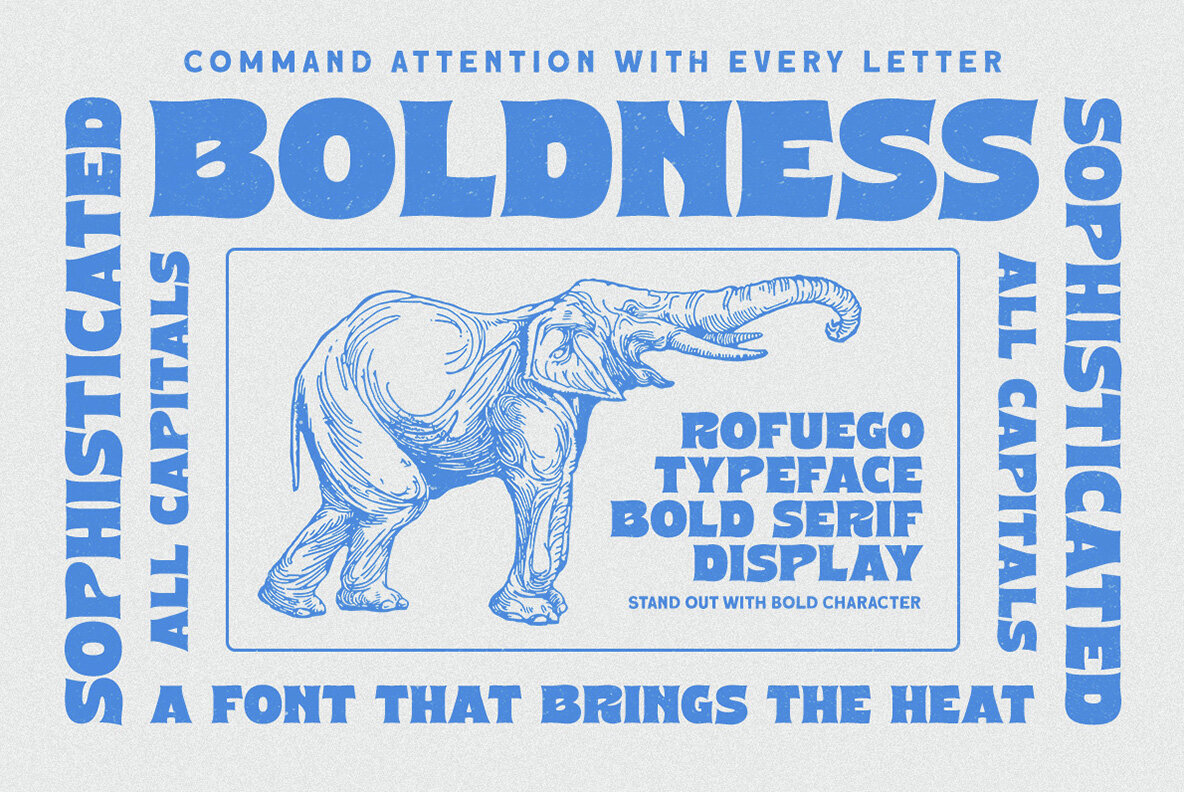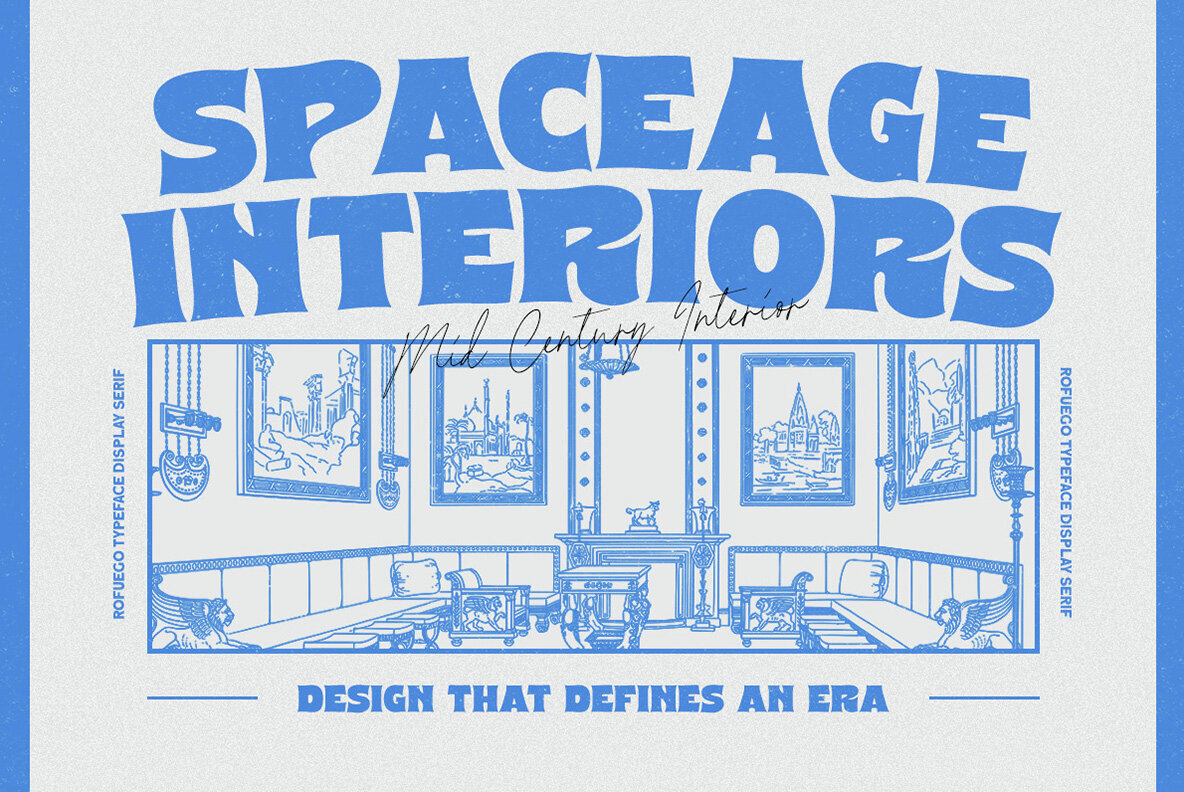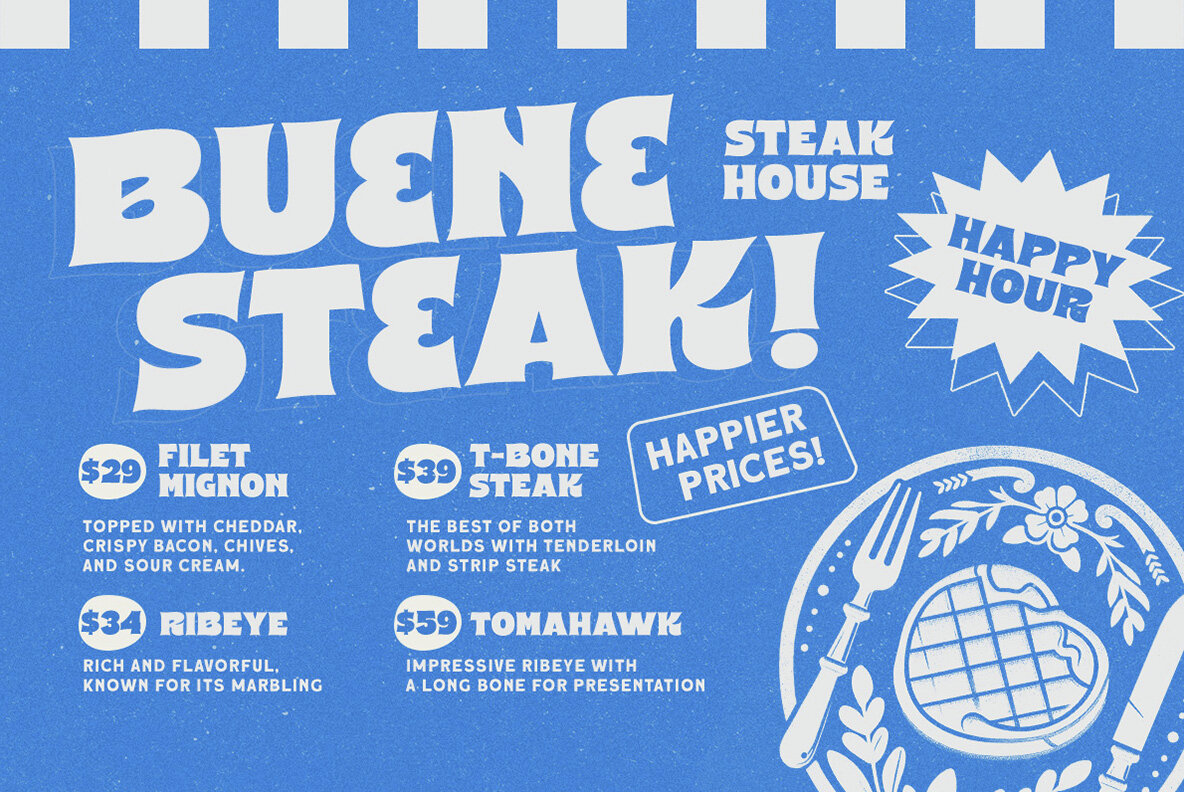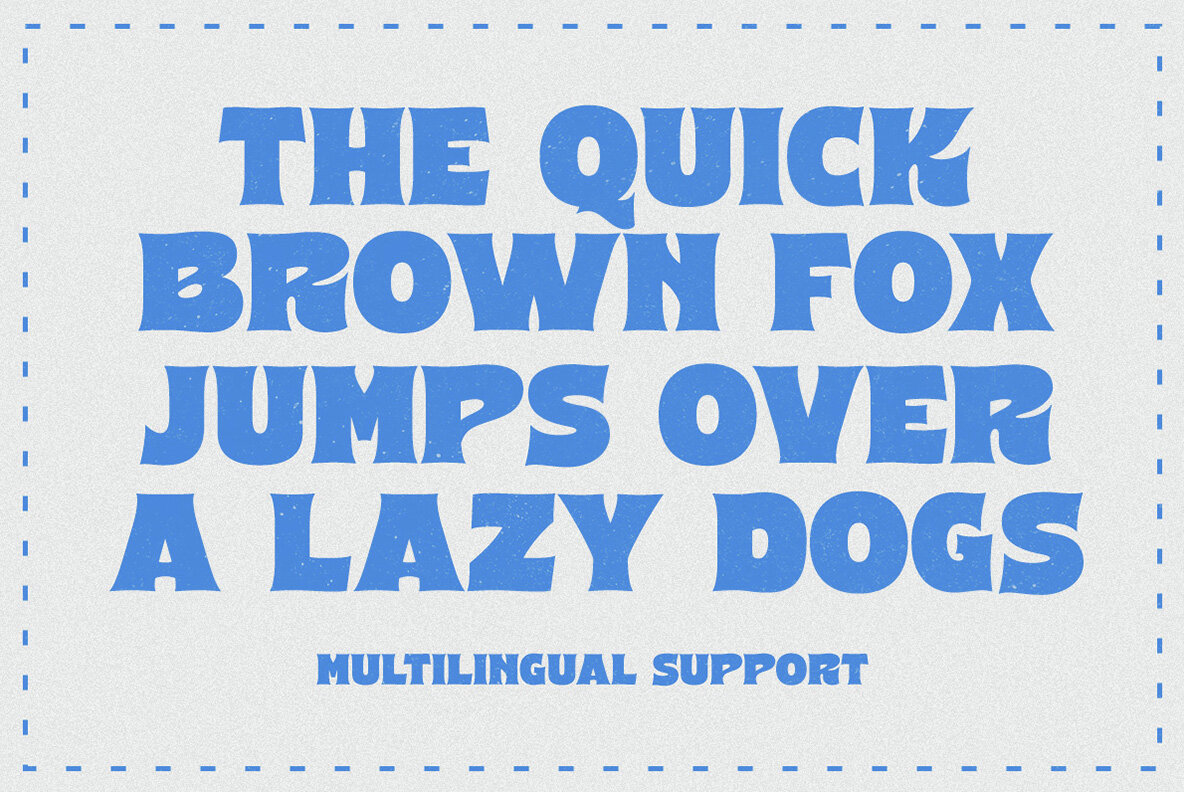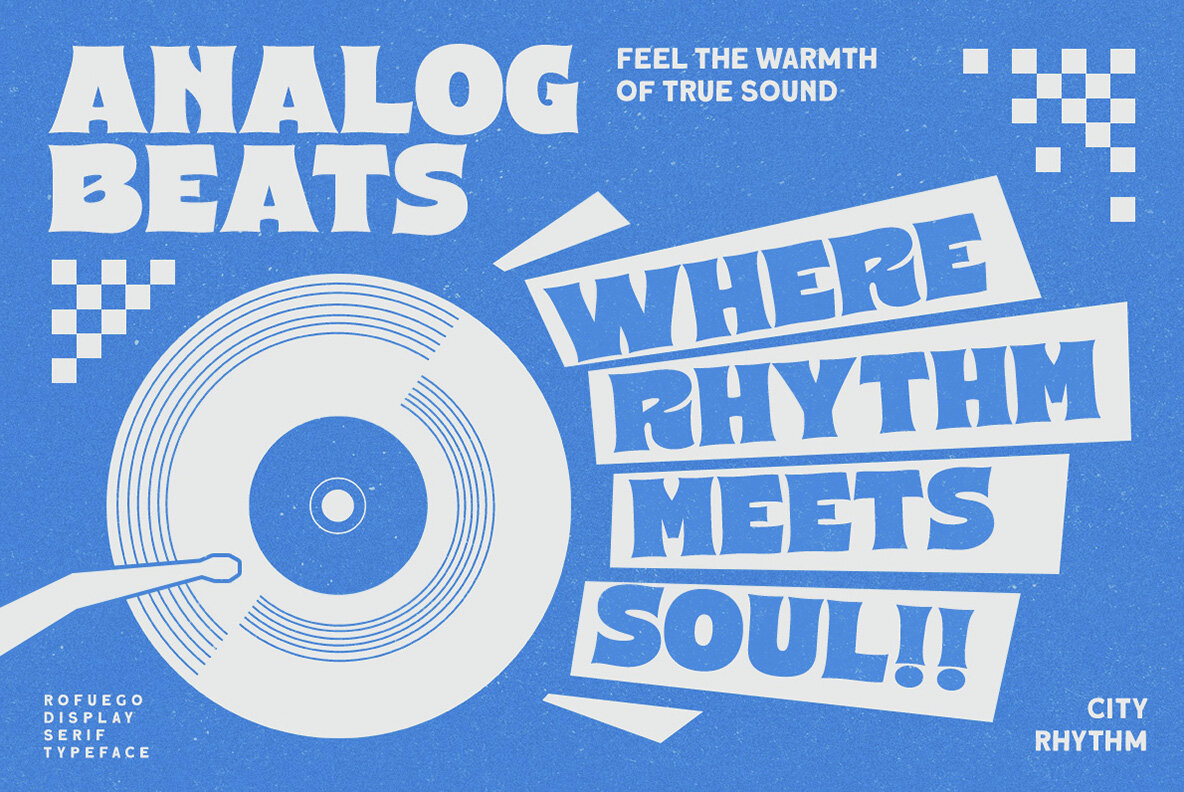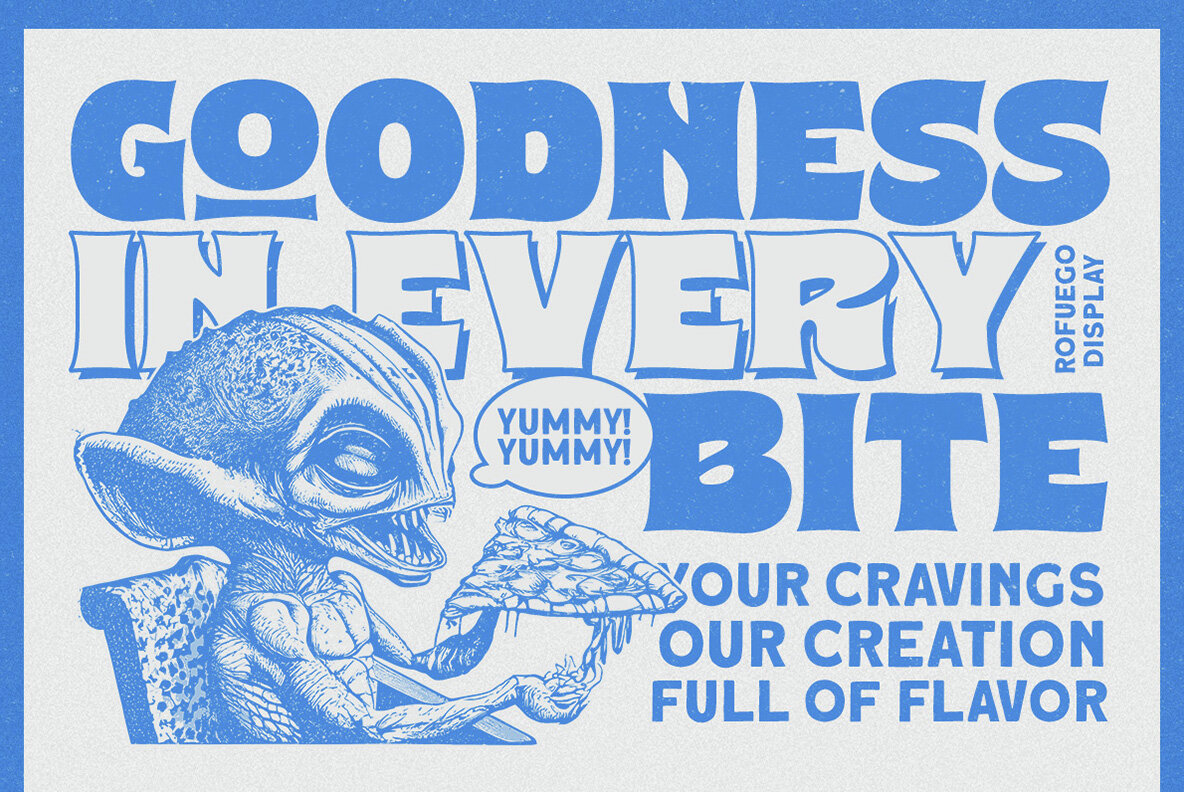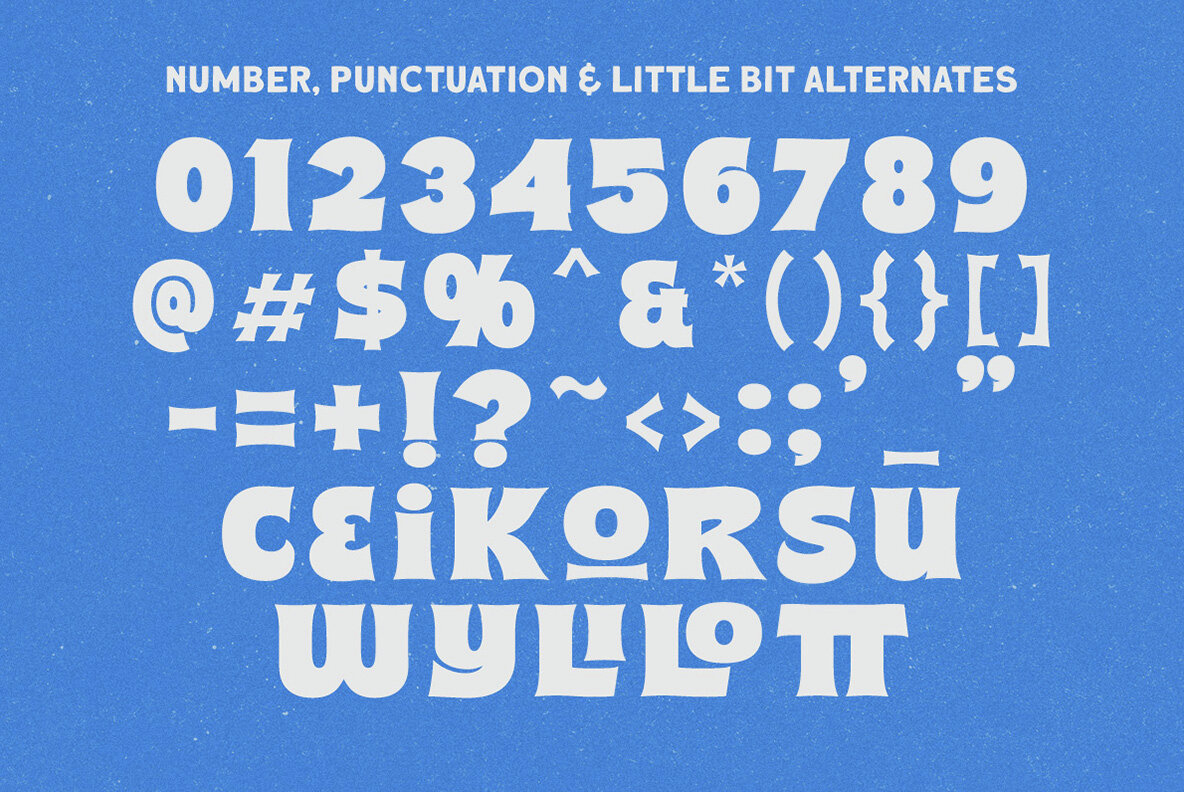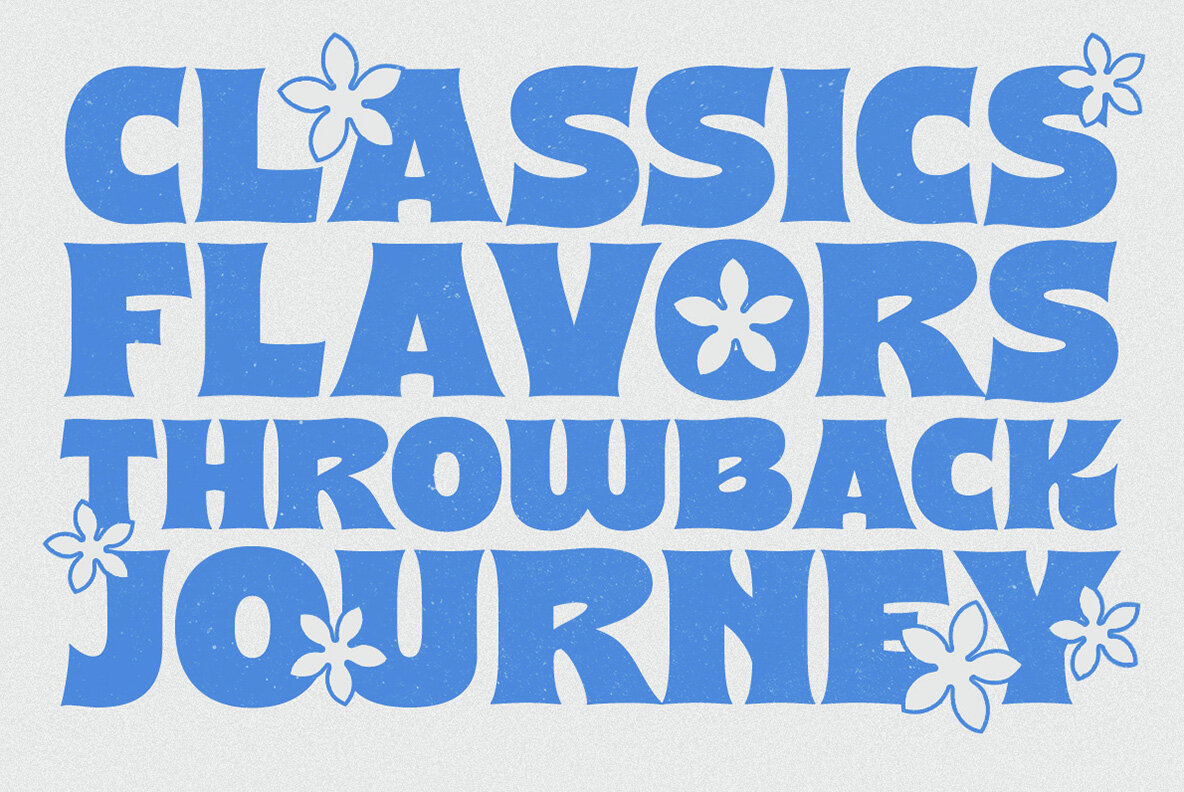
Rofuego Font
Rofuego Regular
Rofuego is a bold display typeface crafted to make a striking impression. It merges a nostalgic feel with a contemporary edge, making it ideal for creating iconic logos, engaging headlines, and standout designs. This typeface offers a complete set of uppercase and lowercase characters, along with numbers and standard punctuation. Additionally, it supports multiple languages, ensuring versatility across various projects.